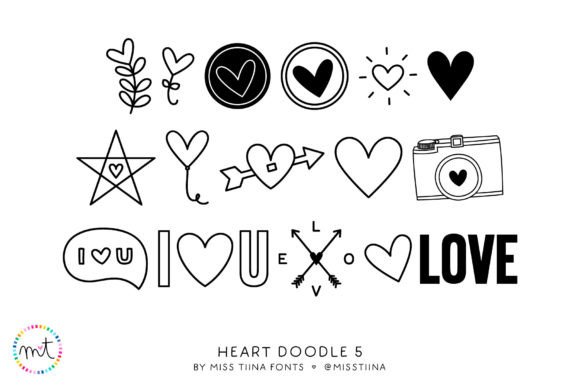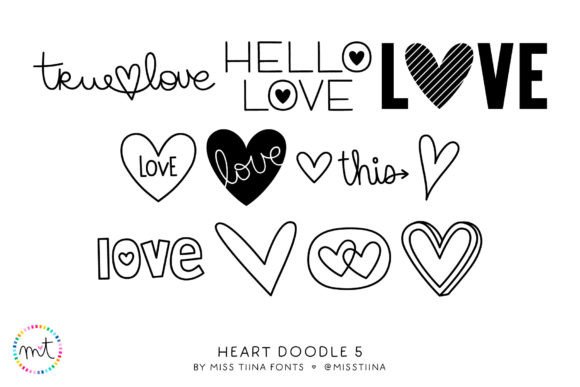
Unveiling Heart Doodle 5 Font: The Ultimate Symbol of Love and Affection
In the world of design, fonts play a crucial role in conveying emotions and messages. When it comes to expressing love and affection, a charming and chic font can make all the difference. Introducing Heart Doodle 5, a delightful dingbat font that has been specifically designed to capture the essence of sentimental moments. Whether it’s Valentine’s Day, a wedding, or an anniversary, Heart Doodle 5 is the perfect choice for designers and crafters looking to add a touch of warmth and fondness to their creations.
The Perfect Font for Romantic Occasions
Heart Doodle 5 is more than just a font – it’s a collection of captivating heart figures that are sure to make your designs pulse with affection and romantic allure. The font’s unique doodle-style hearts are meticulously crafted to convey a sense of love, care, and attention to detail. With Heart Doodle 5, you can create stunning designs that speak directly to the heart, making it an ideal choice for:
- Valentine’s Day cards and gifts
- Wedding invitations and decorations
- Anniversary celebrations and gifts
- Romantic getaways and honeymoon souvenirs
- Love-themed crafts and DIY projects
What Makes Heart Doodle 5 Special?
So, what sets Heart Doodle 5 apart from other fonts? Here are a few reasons why this font has become a favorite among designers and crafters:
- Unique and Charming Design: Heart Doodle 5 features a distinctive doodle-style design that is both charming and eye-catching.
- Versatile and Easy to Use: The font is incredibly versatile and can be used for a wide range of design projects, from digital crafts to commercial products.
- High-Quality and Scalable: Heart Doodle 5 is a high-quality font that can be scaled up or down without losing its charm or clarity.
- Perfect for DIY Projects: The font is ideal for crafters and DIY enthusiasts who want to add a personal touch to their projects.
How to Use Heart Doodle 5 in Your Designs
Using Heart Doodle 5 in your designs is incredibly easy. Here are a few tips to get you started:
- Pair it with Other Fonts: Combine Heart Doodle 5 with other fonts to create stunning contrast and visual interest.
- Experiment with Colors: Try out different colors and textures to add depth and emotion to your designs.
- Use it for Headlines and Titles: Heart Doodle 5 is perfect for headlines and titles, adding a touch of whimsy and romance to your text.
- Create Custom Illustrations: Use the font to create custom illustrations and graphics that showcase your creativity.
| Author | Miss Tiina |
In conclusion, Heart Doodle 5 is a charming and chic dingbat font that is sure to capture the hearts of designers and crafters alike. With its unique doodle-style hearts and versatile design, it’s the perfect choice for anyone looking to add a touch of love and affection to their creations. Whether you’re a professional designer or a DIY enthusiast, Heart Doodle 5 is set to become your go-to tool for crafting designs that pulse with affection and romantic allure.
Get Ready to Fall in Love with Heart Doodle 5!